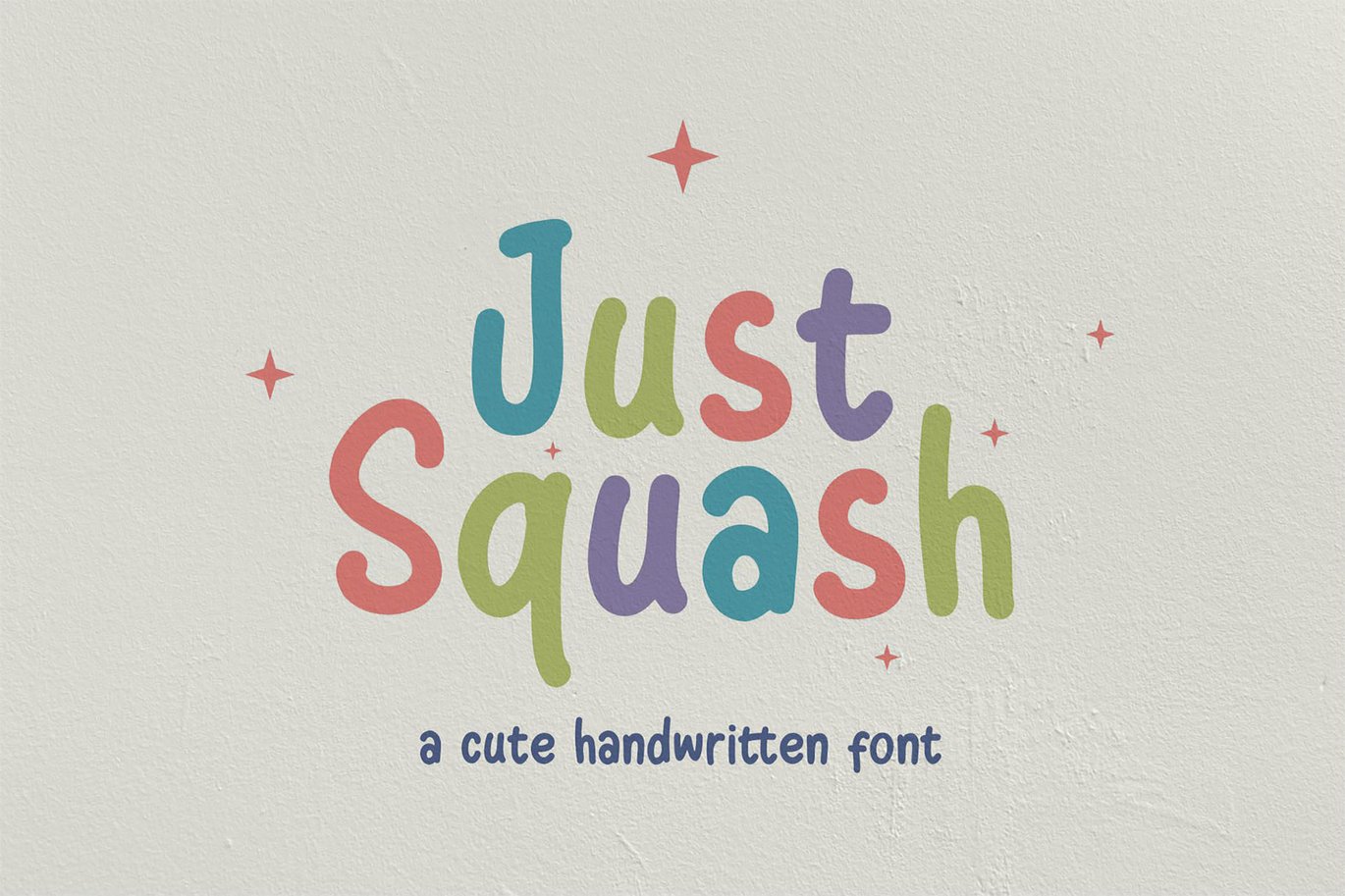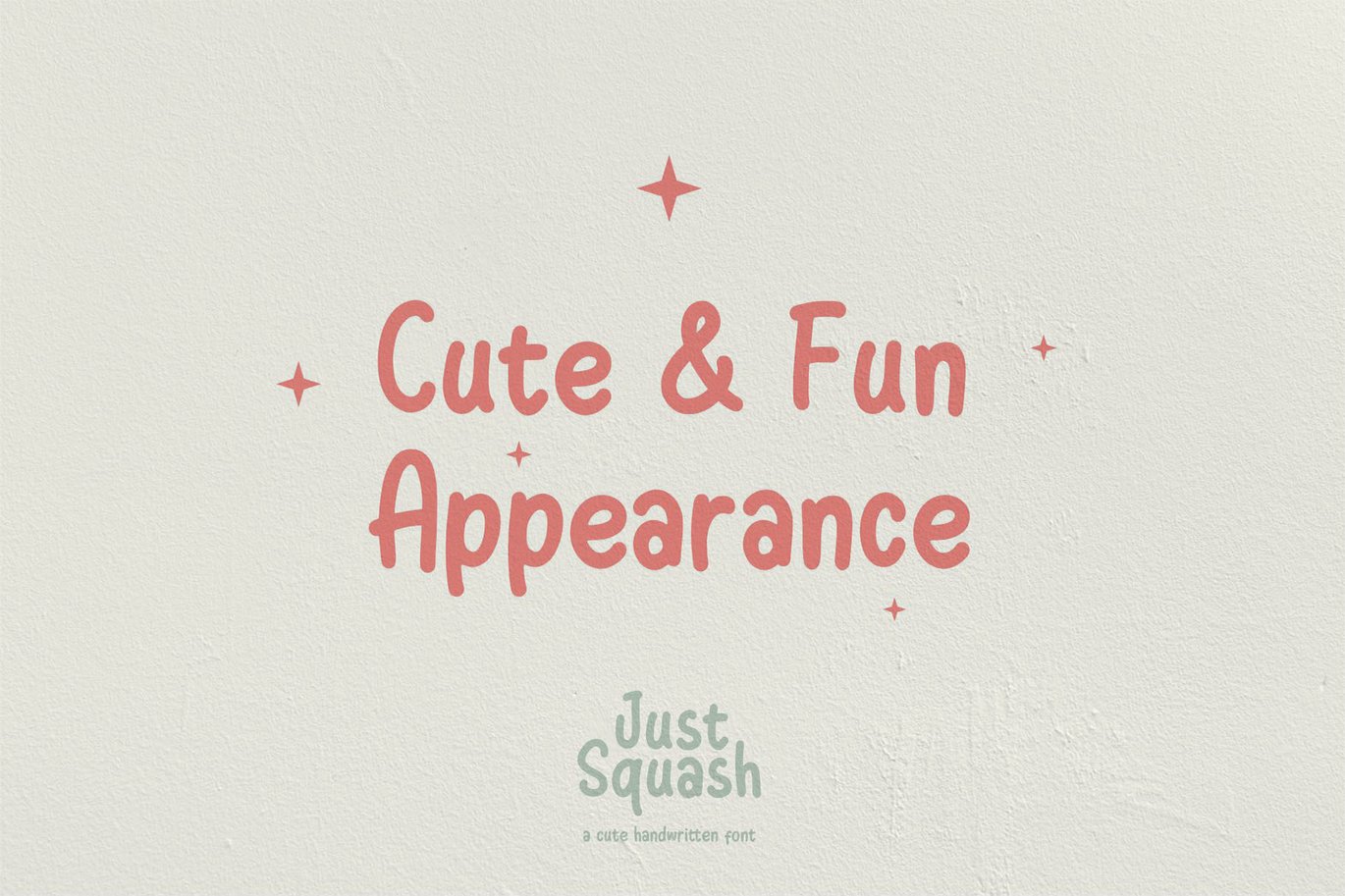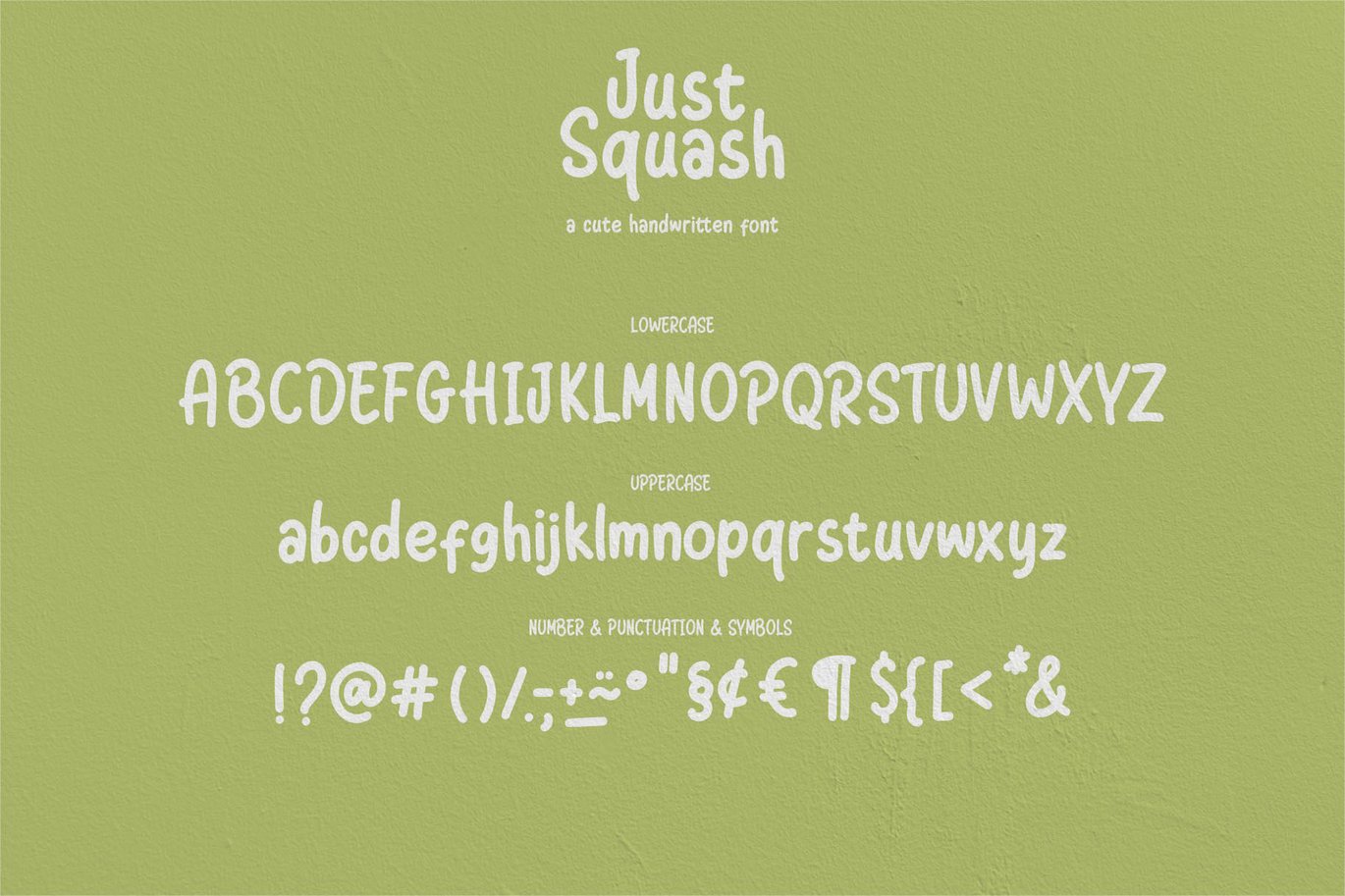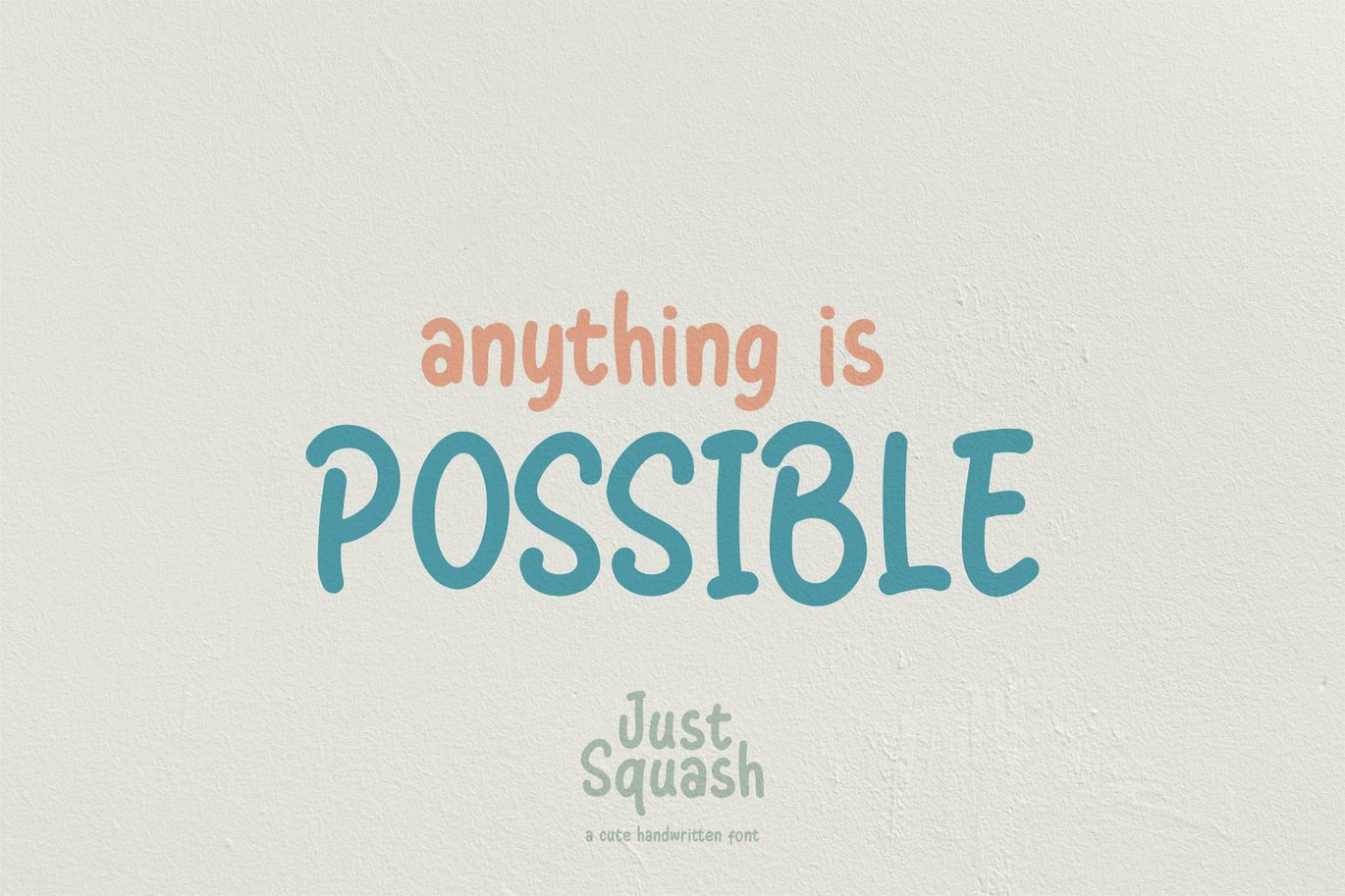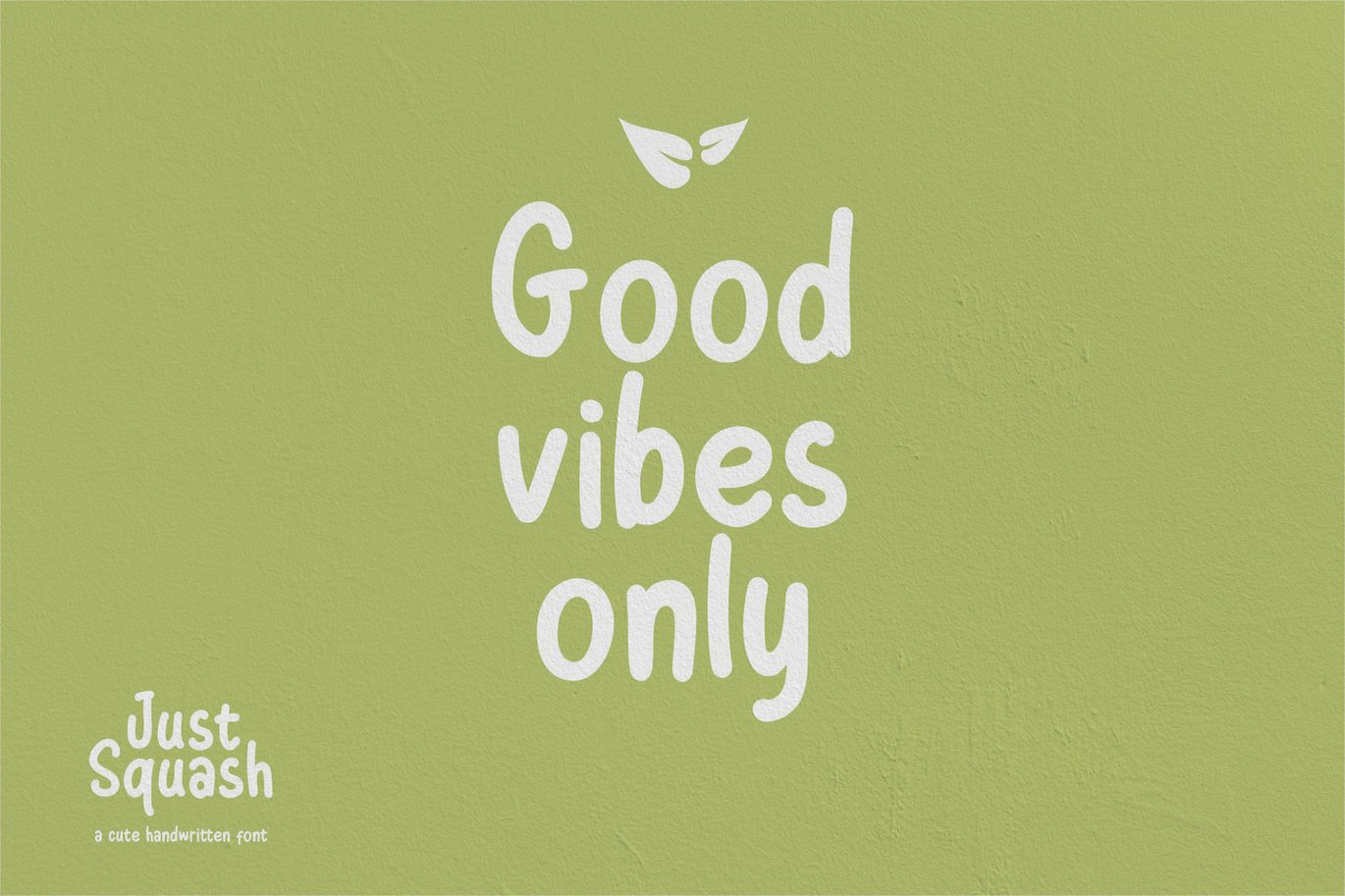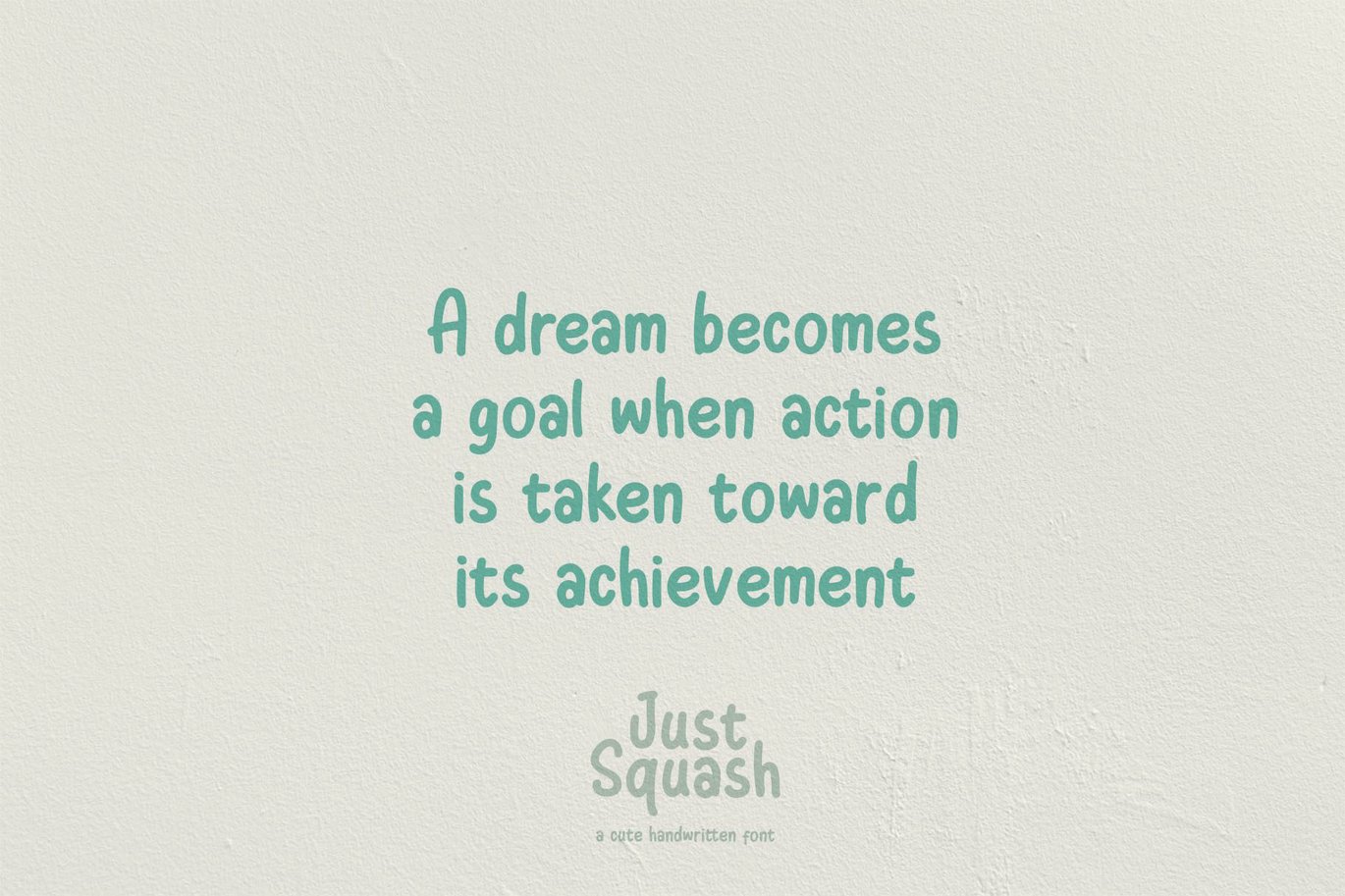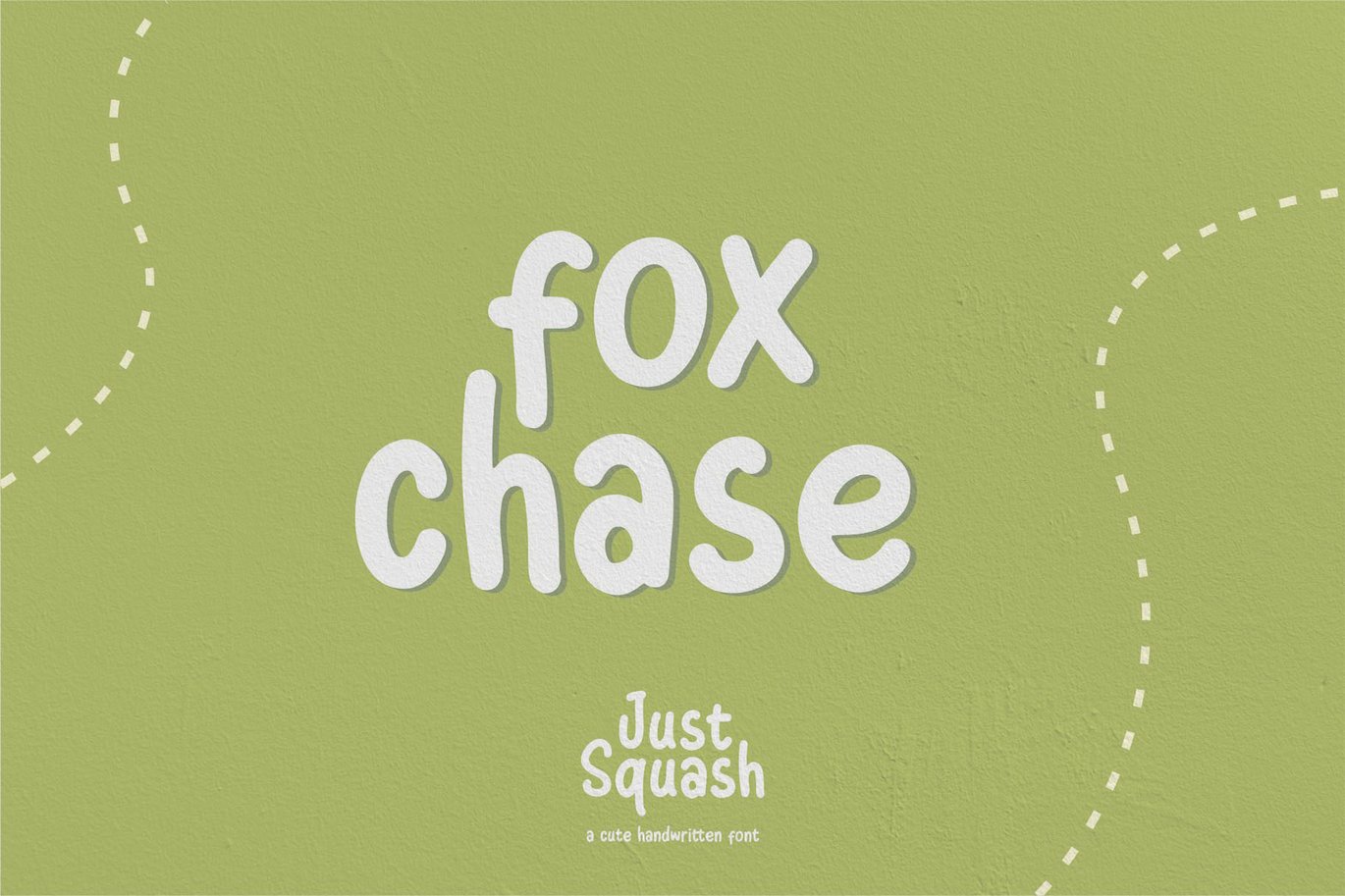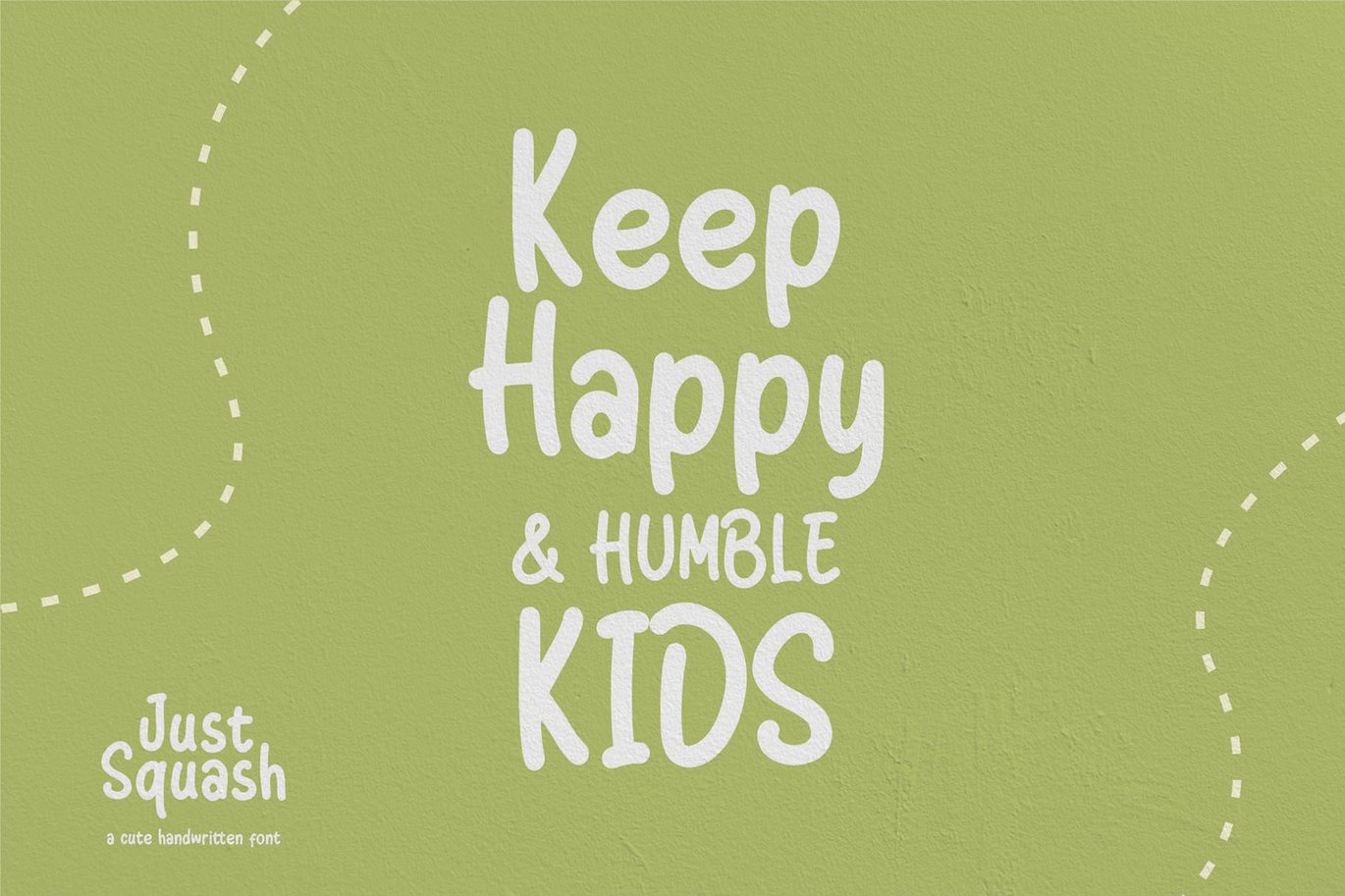
Just Squash | Cute Font
Just Squash | Cute Font – A cute and simple hand-lettered bubbly sans serif font! This font would be perfect for party invitations, baby showers, birthday cards and more.
Uppercase & Lowercase
Includes Numbers and Punctuation